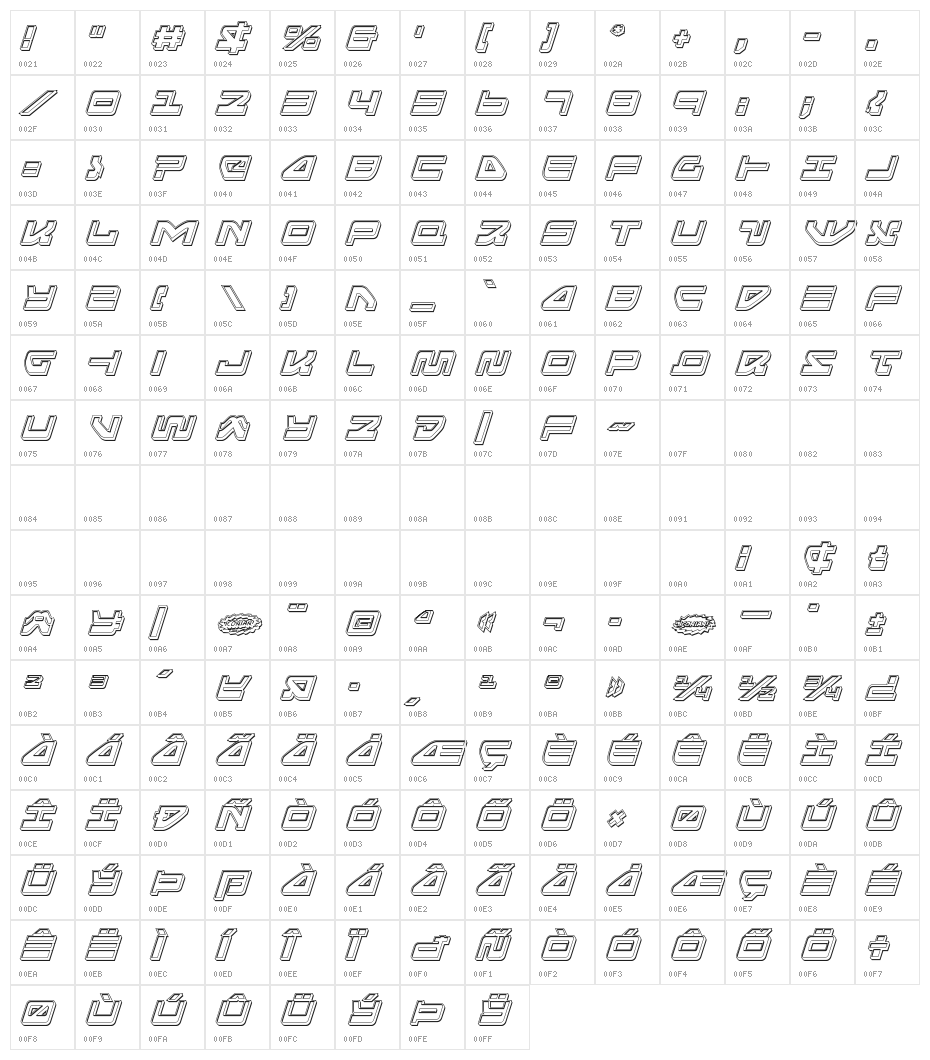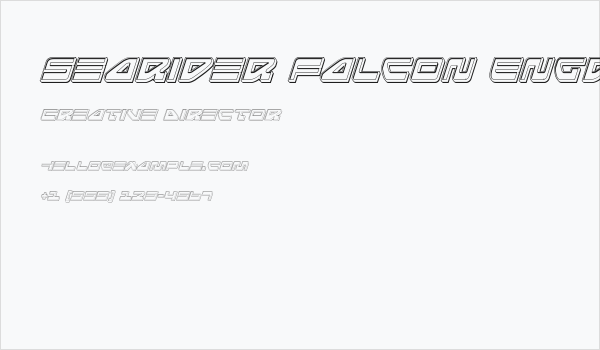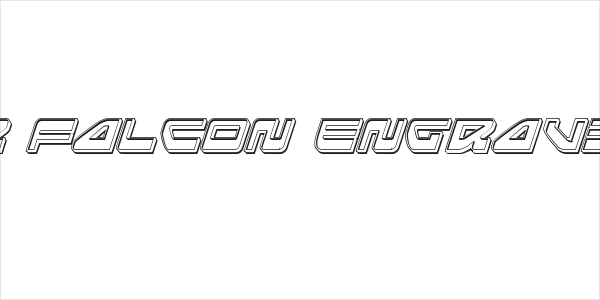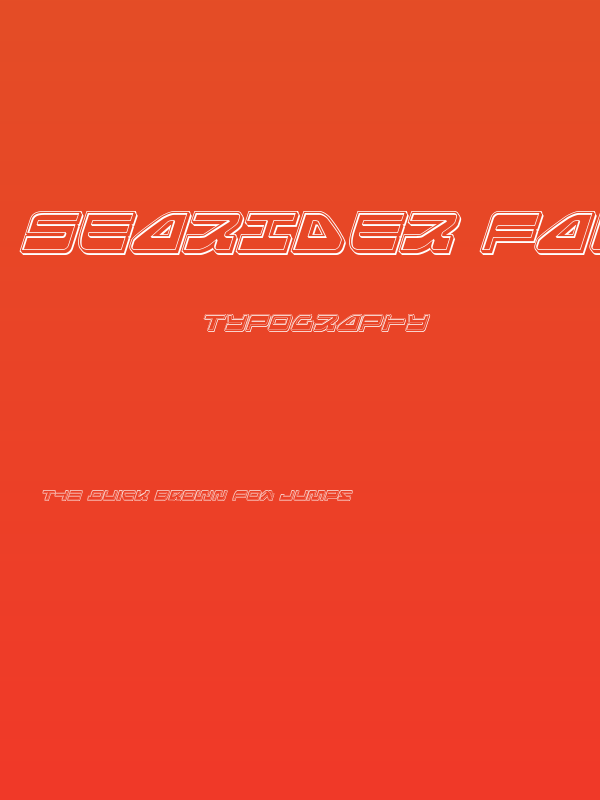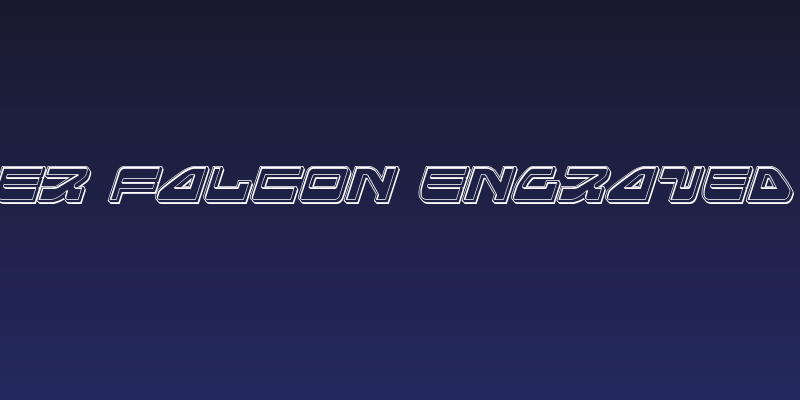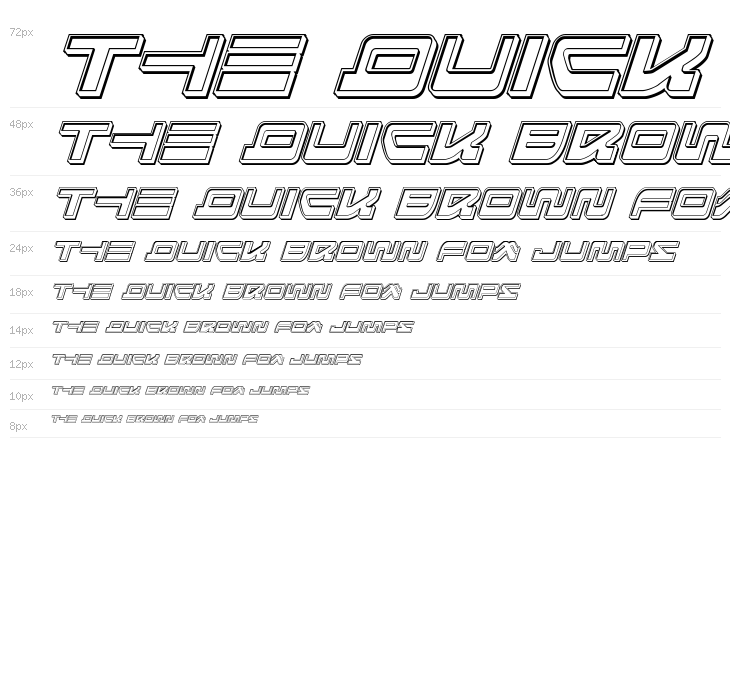
Searider Falcon Engraved Italic Font
Searider Falcon Engraved Italic Description
This font features a bold, futuristic design with an engraved effect, giving each character a three-dimensional appearance. The italic slant adds a dynamic and forward-moving feel, while the geometric shapes and sharp angles contribute to its modern aesthetic. The double-line structure creates a sense of depth and intricacy, making it stand out in any design. The characters are uniformly spaced, maintaining a consistent and clean look across all letters and numbers. This font is ideal for projects that require a strong, impactful visual presence.
Overall StyleFuturistic, Modern
Proposed ProjectsIdeal for sci-fi themed designs, video game titles, tech branding, and futuristic posters.